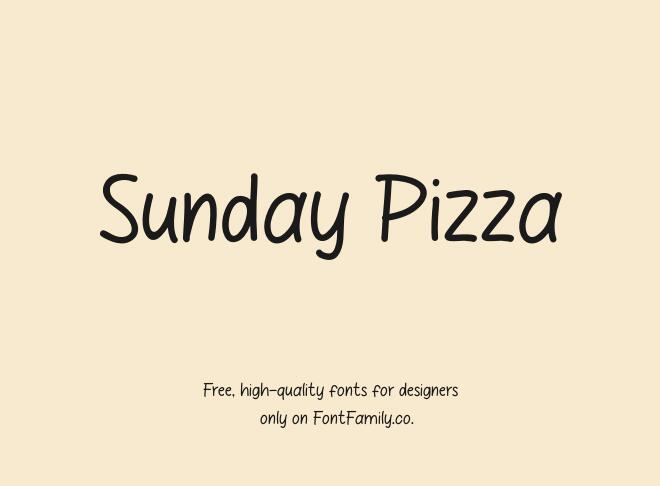
Sunday Pizza Font
Sunday Pizza Font is a playful, retro-inspired typeface designed by Pizzadude. As a handwritten display font, it retains a casual and friendly vibe that is perfect for informal design contexts. Its quirky and distinct character style gives it a fun and approachable feel, reminiscent of a cheerful Sunday afternoon spent enjoying pizza. This font is an excellent choice for designs that require a touch of whimsy and personality, such as children's books, party invitations, or restaurant menus. Its unique character set, along with its bold strokes, make it stand out in any design. Although it can be compared to other playful fonts, Sunday Pizza Font has its own unique charm that sets it apart. Its free license makes it an excellent choice for personal projects and hobbyist designers.